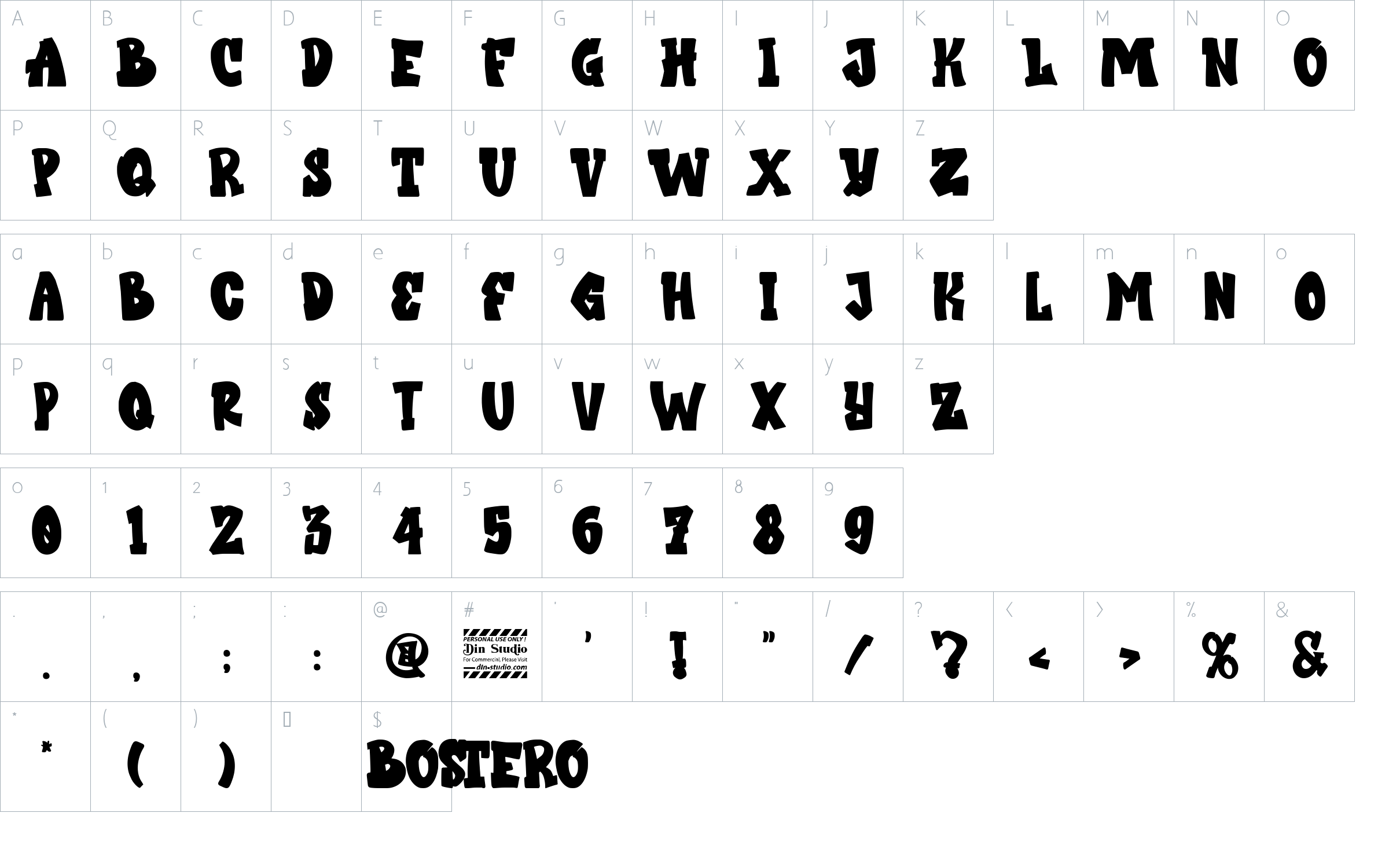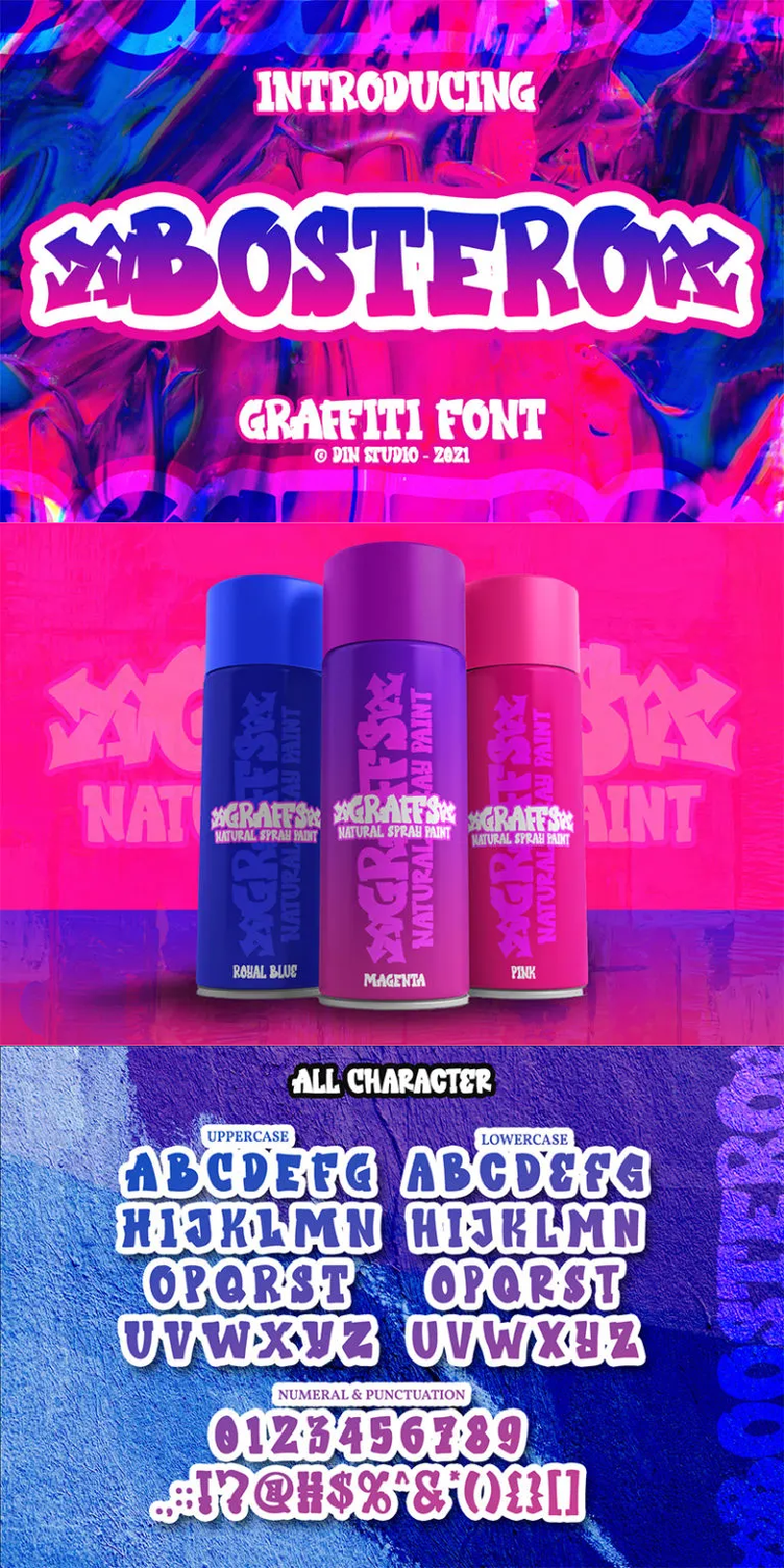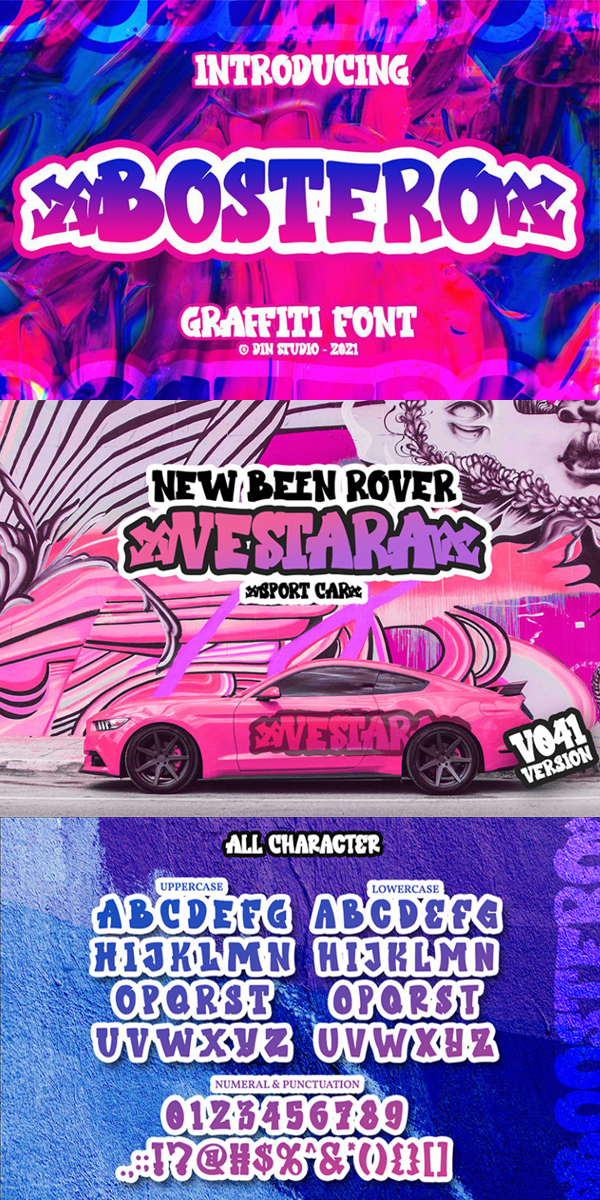
BOSTERO Font
About BOSTERO
Bostero is a graffiti font style that embodies the urban tagging scene. This stylish font features thick, angular letters, and offers uppercase letters only. With its strong outlines and fat strokes, this is the font you need when you want to create a classic bubble graffiti font look. This font can use for a host of different content needs and projects. Create gorgeous printed quotes, standout packaging, and beautiful t-shirts! You can even use it to create amazing headings, logos, menus, and social media graphics.